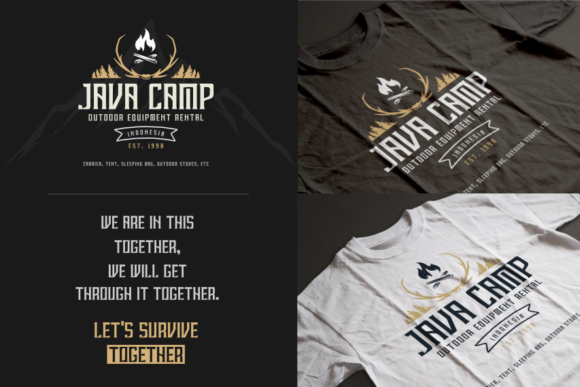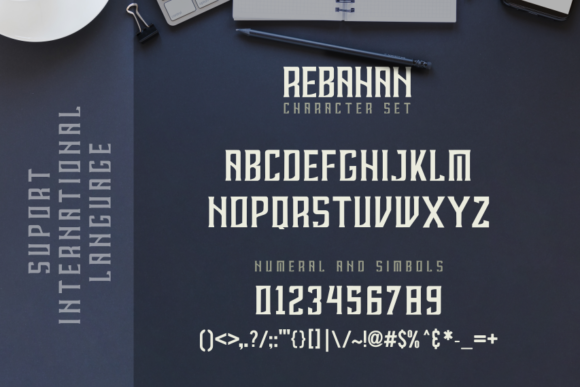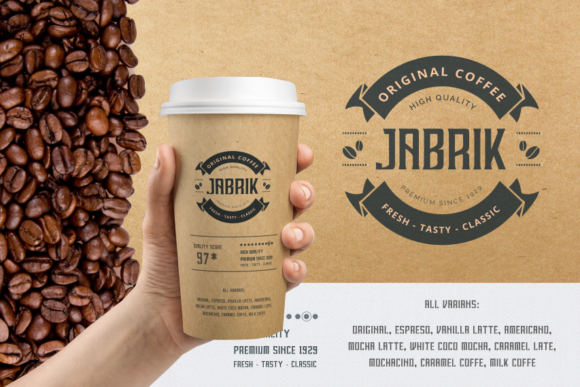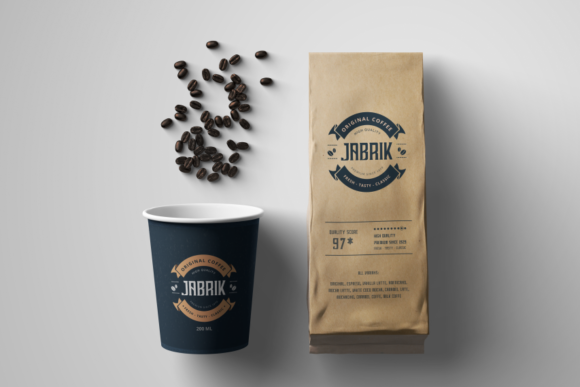
Introduction to Rebahan Font
Rebahan is a simple and unique display font, characterized by a vintage style.
Add this font to your creative ideas and notice how it will make them stand out .
Key Features of Rebahan Font
Why Choose Rebahan Font?
Rebahan Font offers exceptional quality and versatility, making it a valuable addition to your design toolkit. Whether you’re creating for personal projects or commercial use, Rebahan Font delivers professional results.